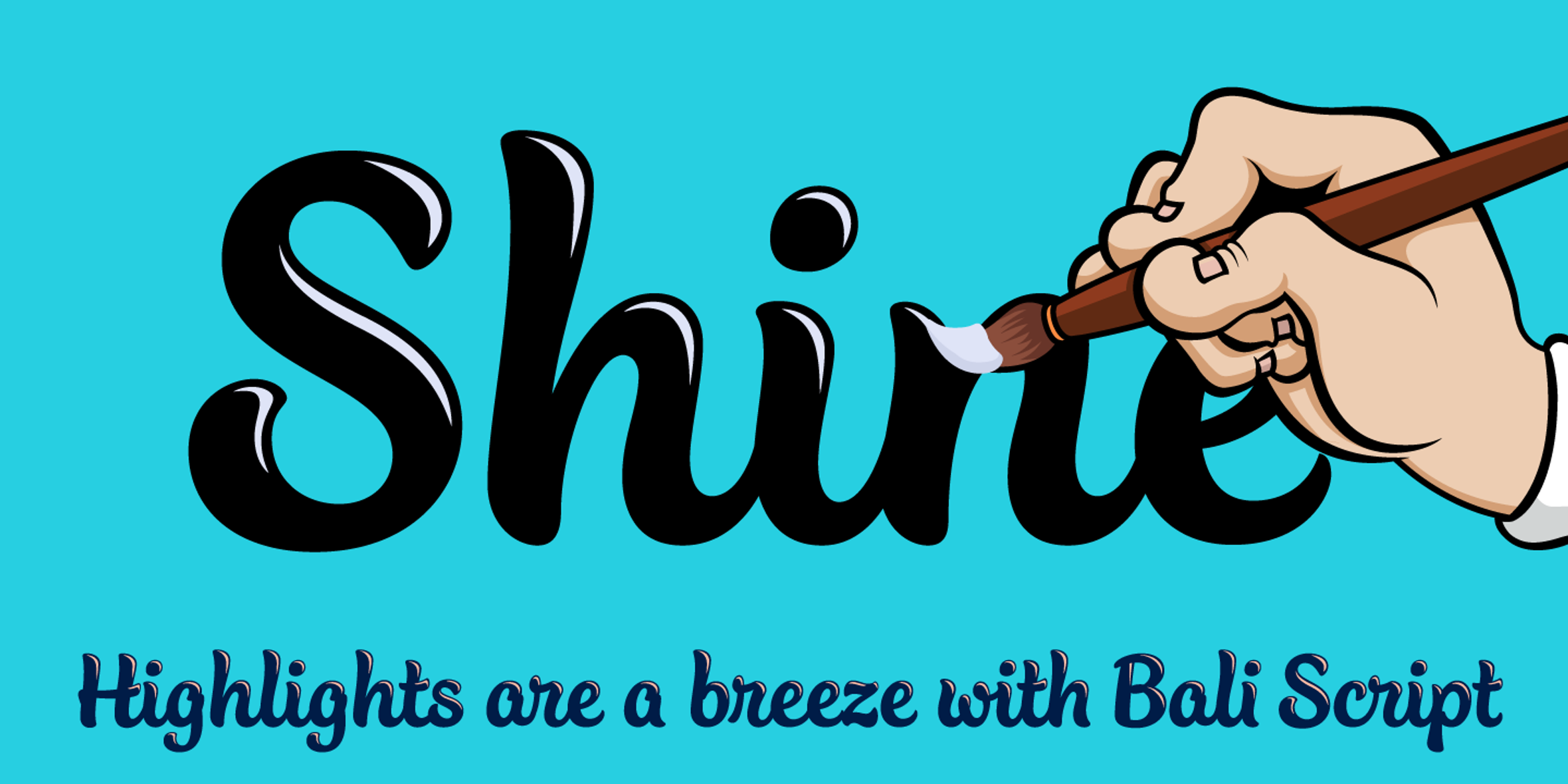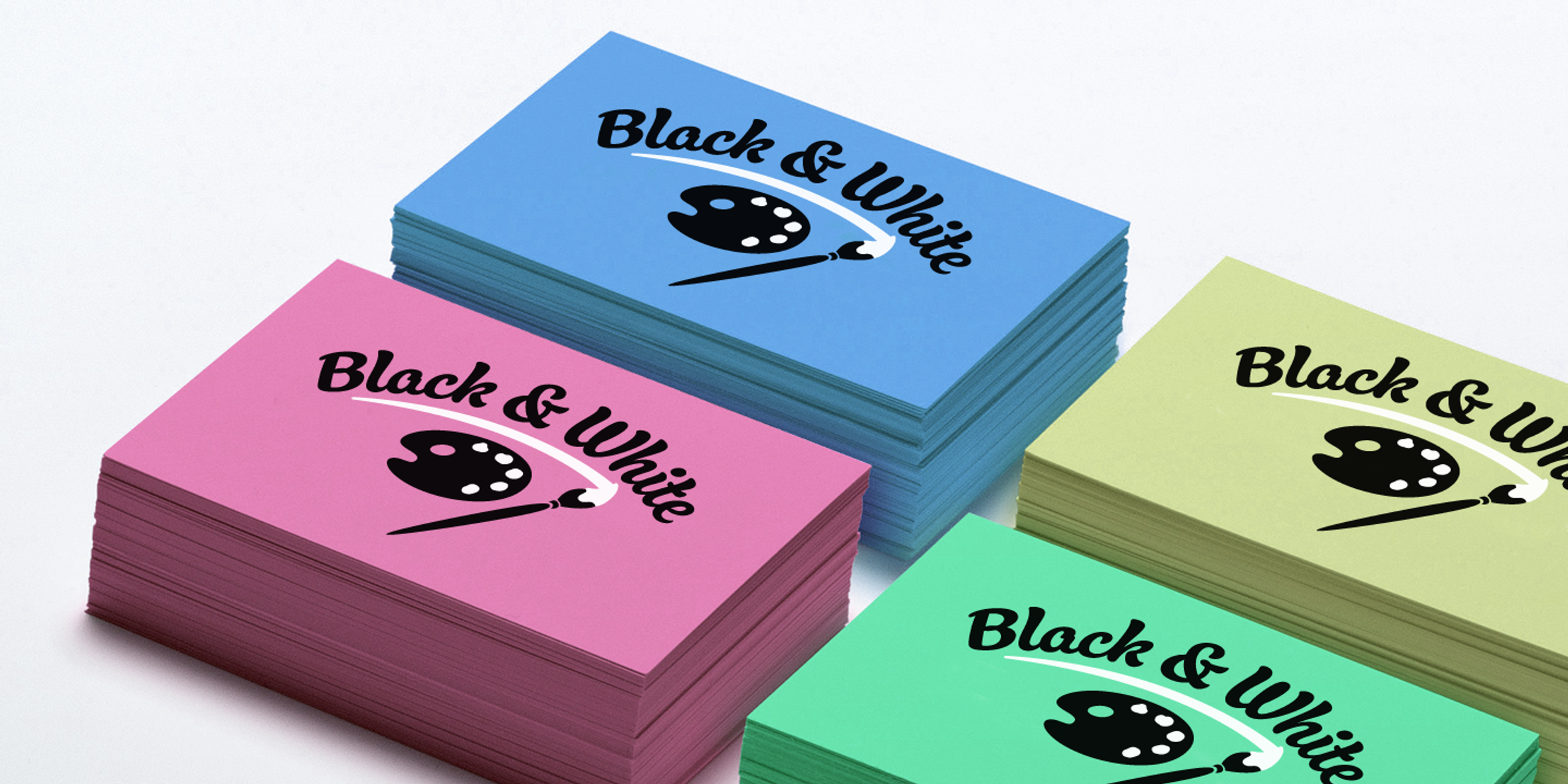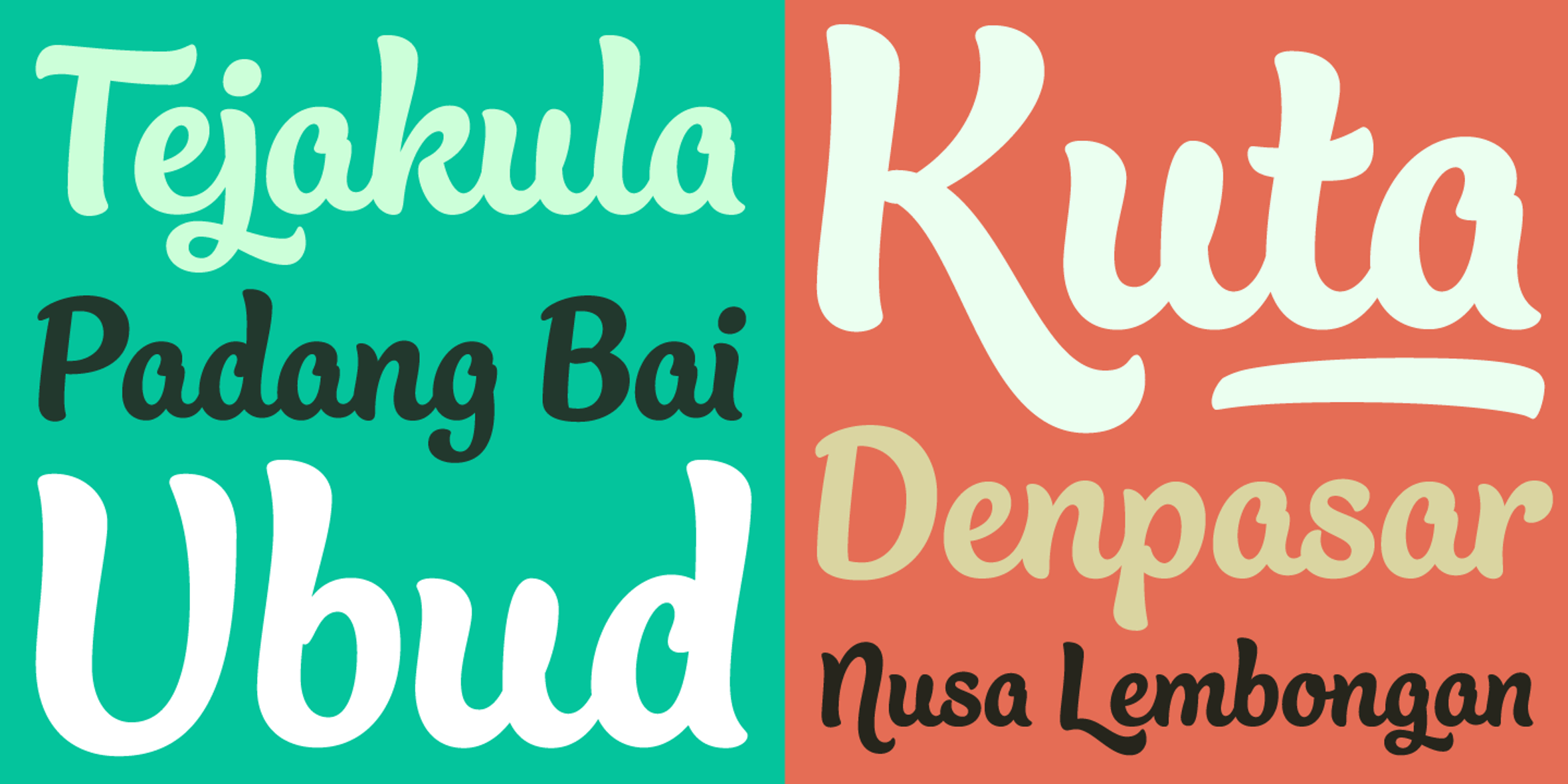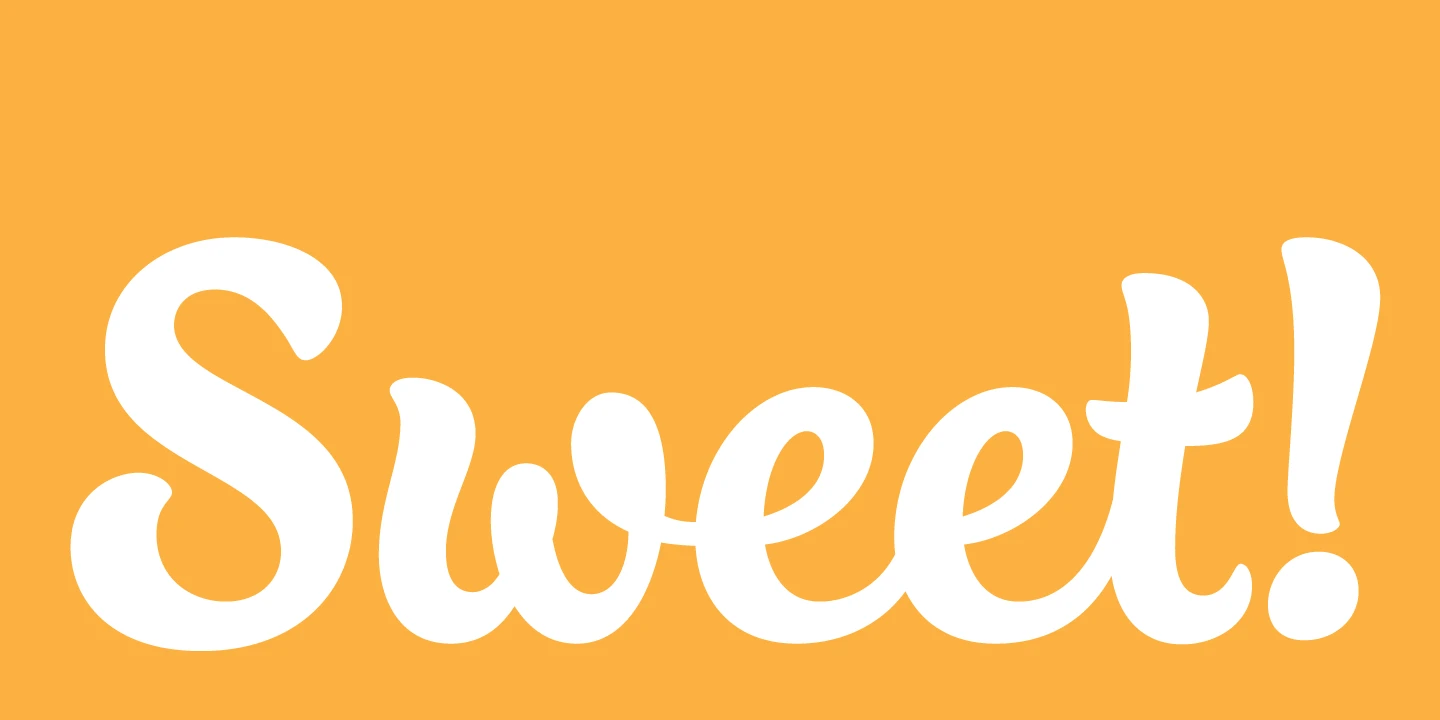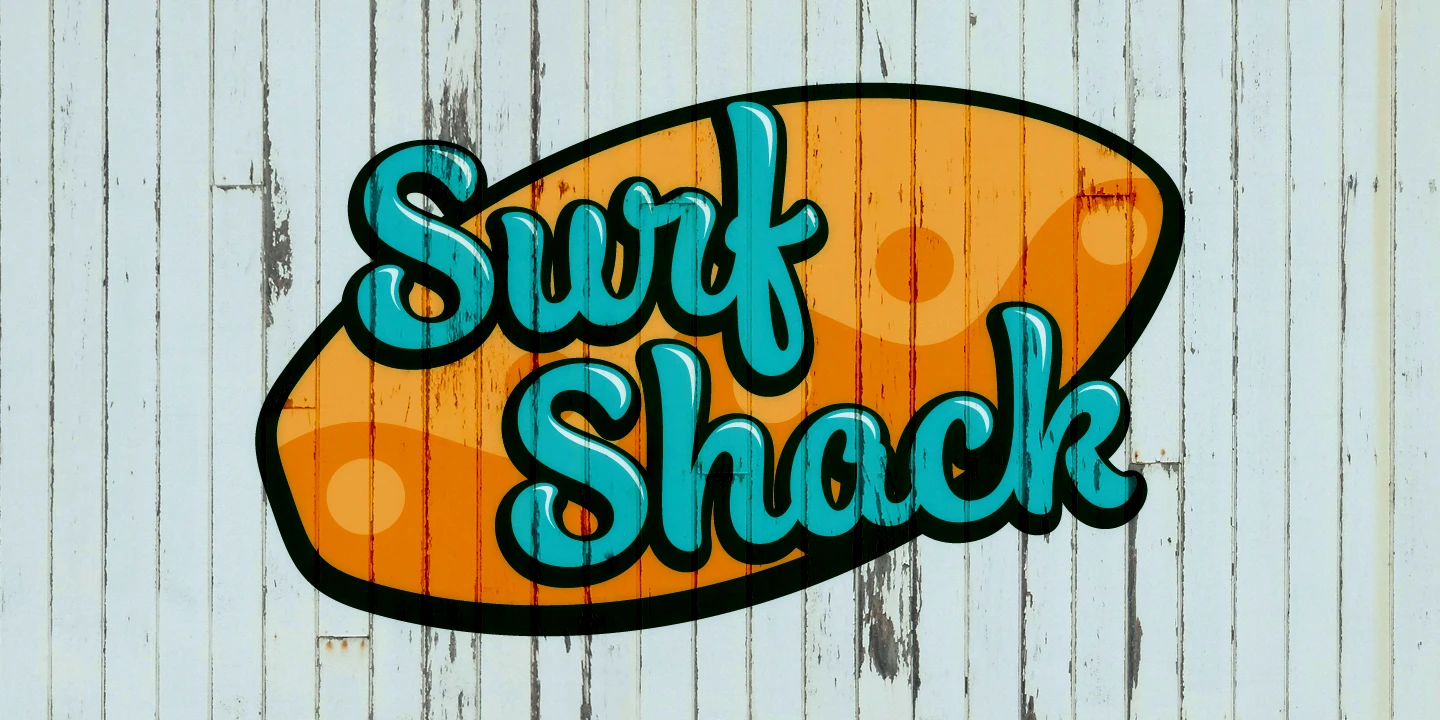
Bali Script Font Family
Bali Script Styles
Bali Script Highlight
Bali Script Regular
Bali Script Shine
Bali Script Details
Bali Script
Inspired by the Indonesian island’s laid-back feel and easy-going culture, Bali Script is a tribute to the hand-lettered signage on beach bars, surf shacks, and cafes. The swell of the stroke endings and the bolder-than-your-average inky look convey a cool take on baseball scripts. Overlay Bali Script Highlight for a cartoonish, glossy finish. This font is jam-packed with features — oodles of ligatures and alternates — making smooth-flowing text a breeze. Bali Script is rhythmic magic.